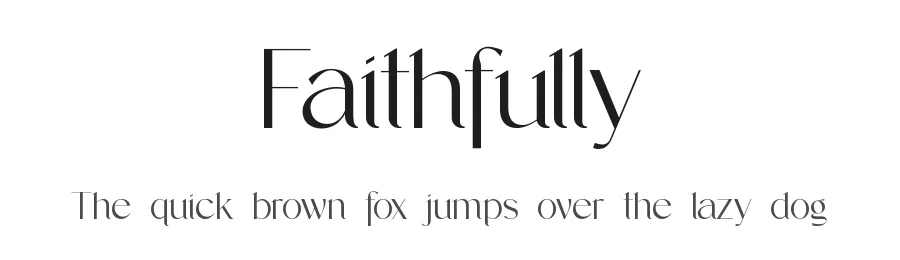
About The Sectarian Font
The Sectarian supports 213 languages.
The Sectarian Font is a versatile serif font that works for both headings and body text. Pair it with a contrasting sans-serif or slab serif font to add visual interest and a clear distinction between titles and body copy.